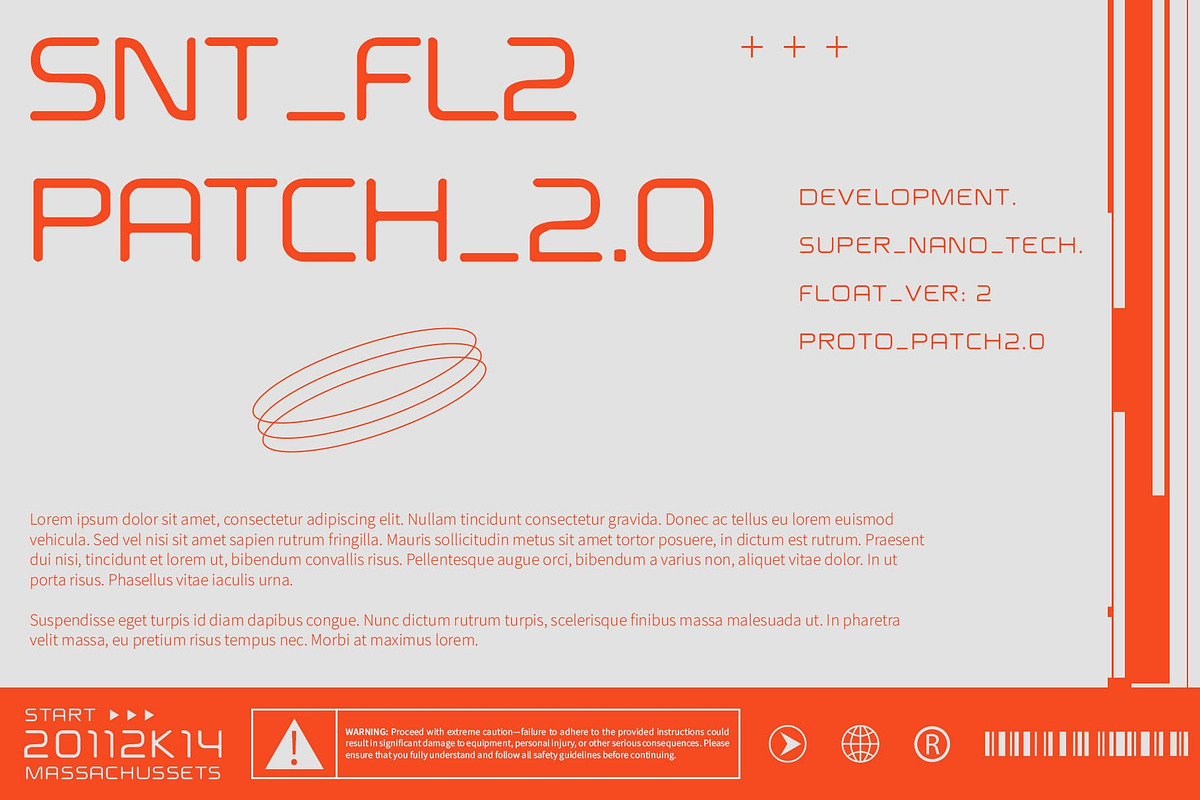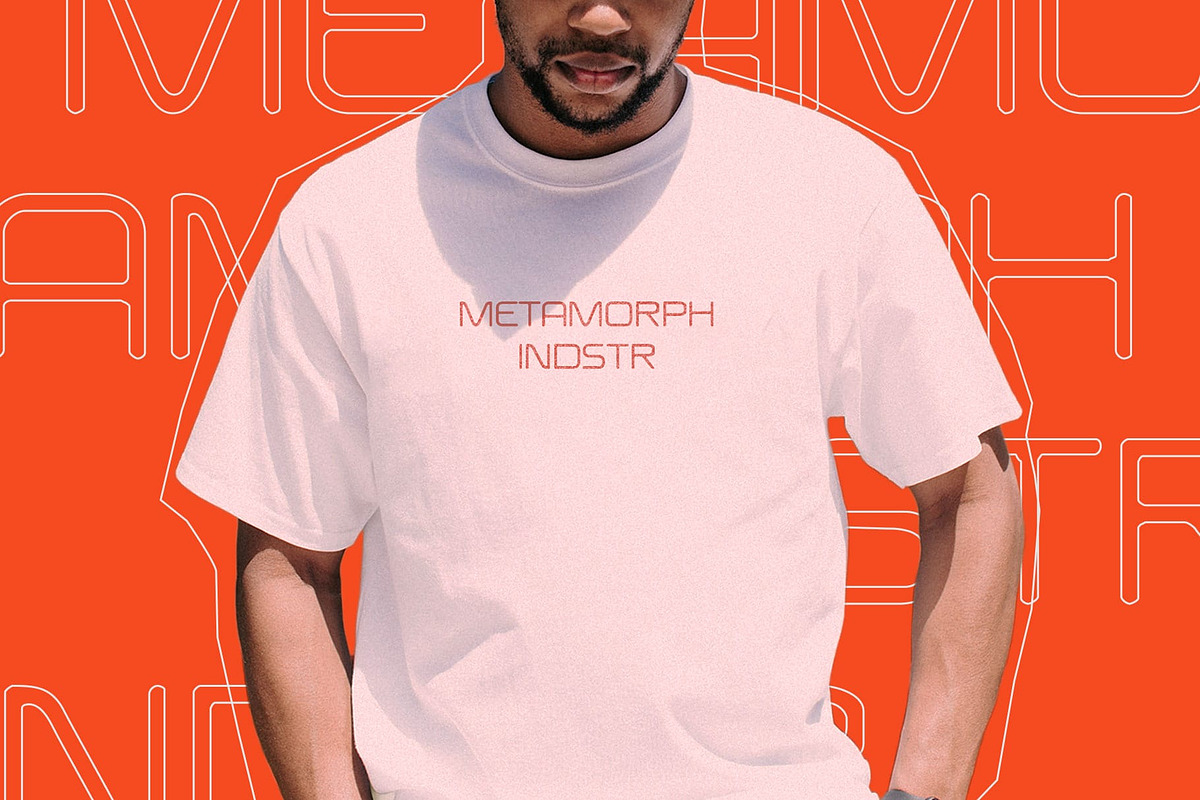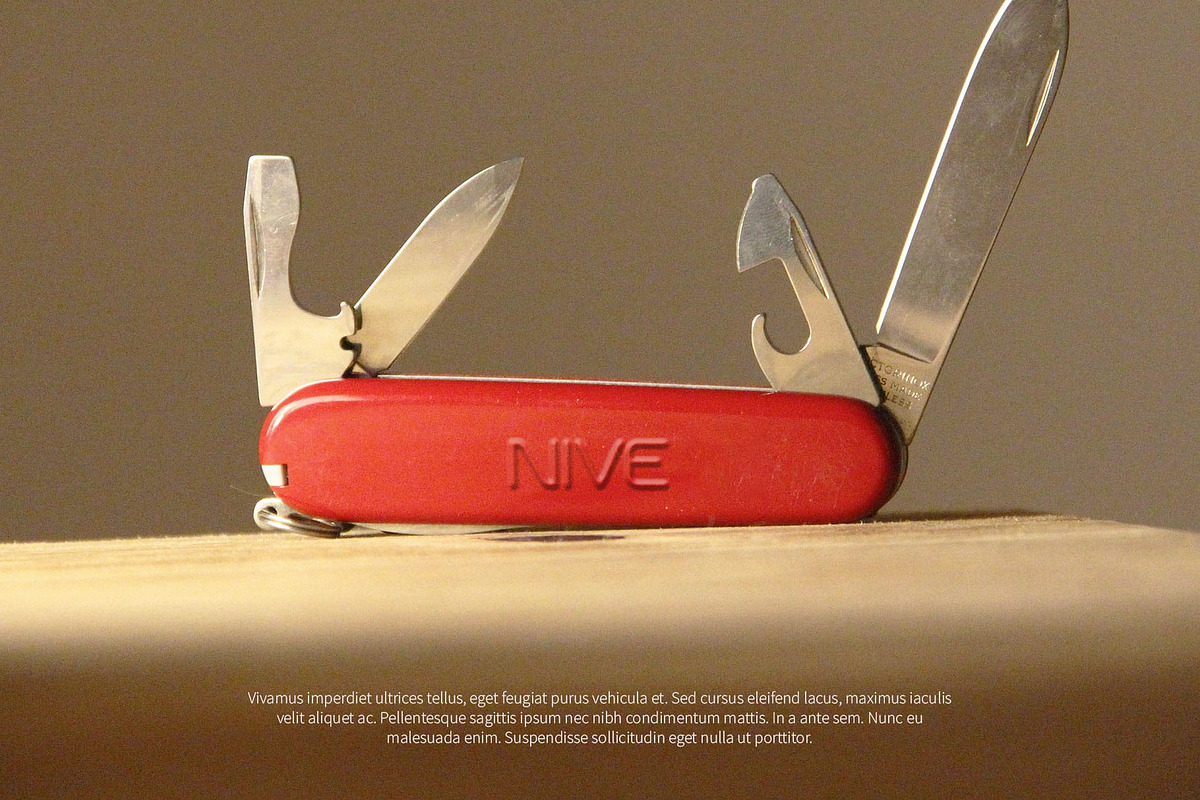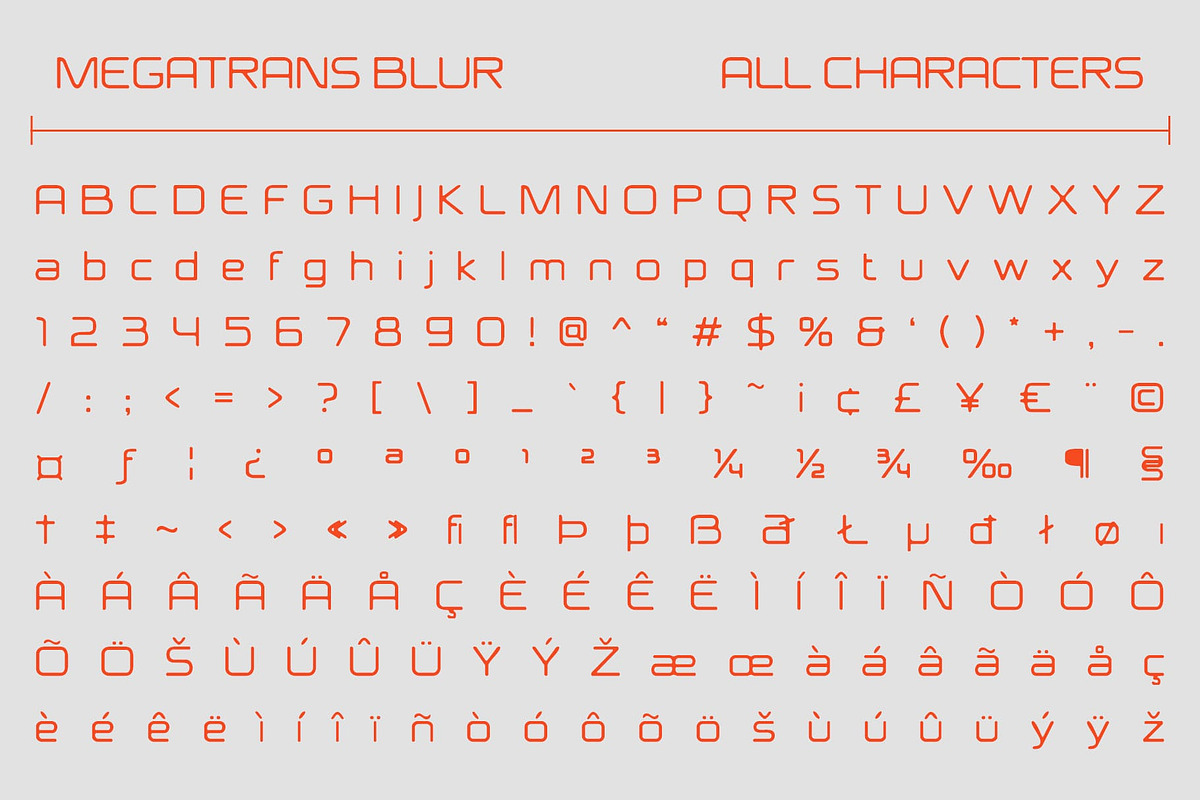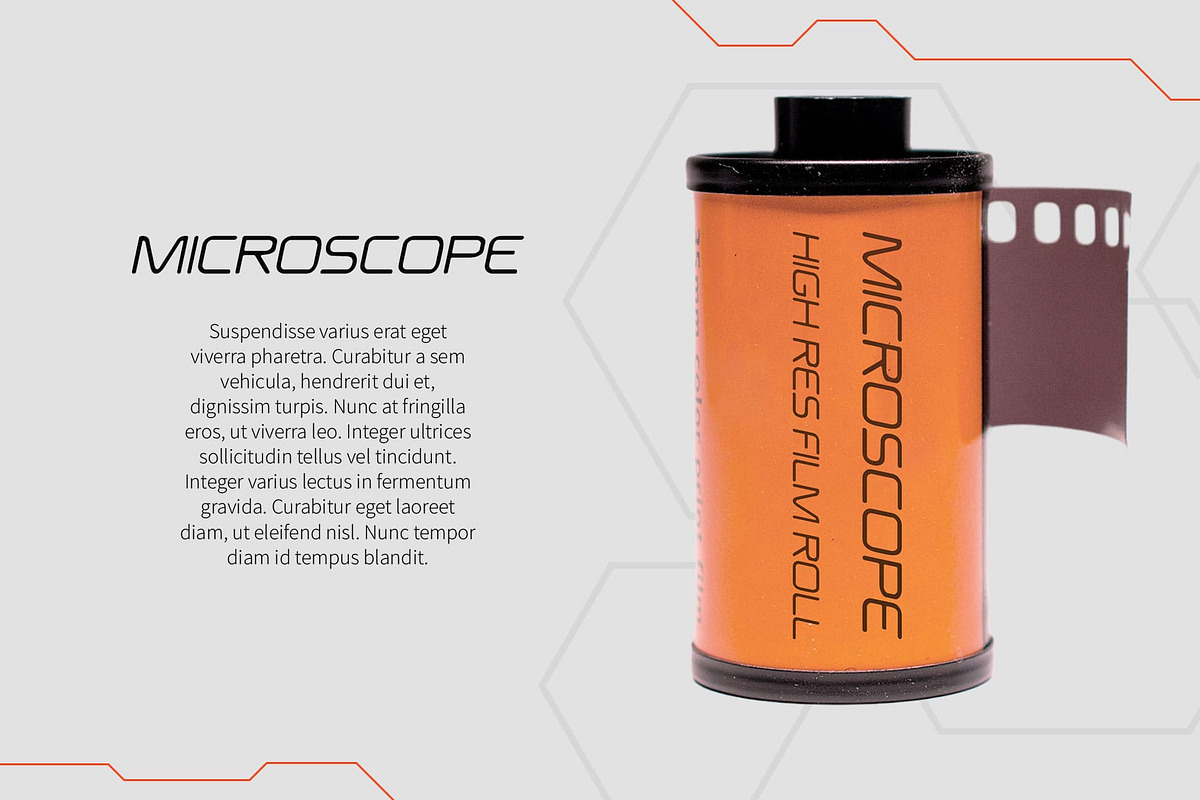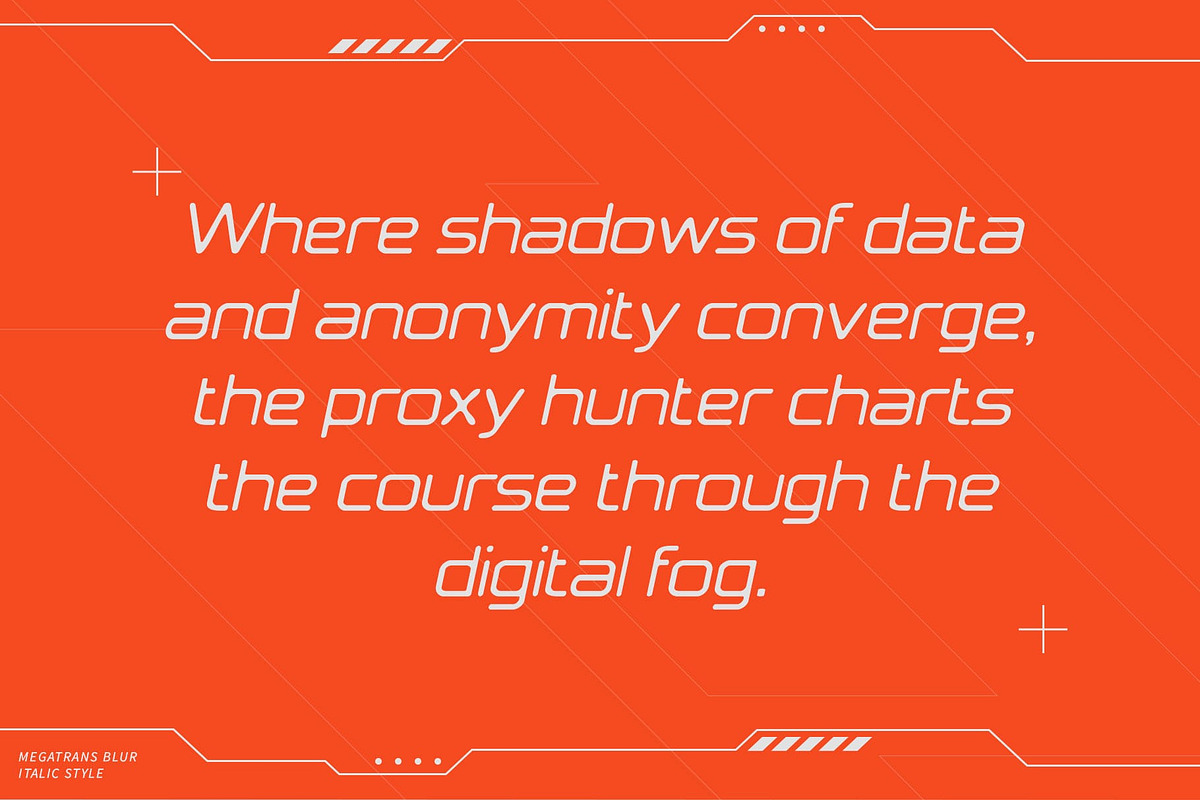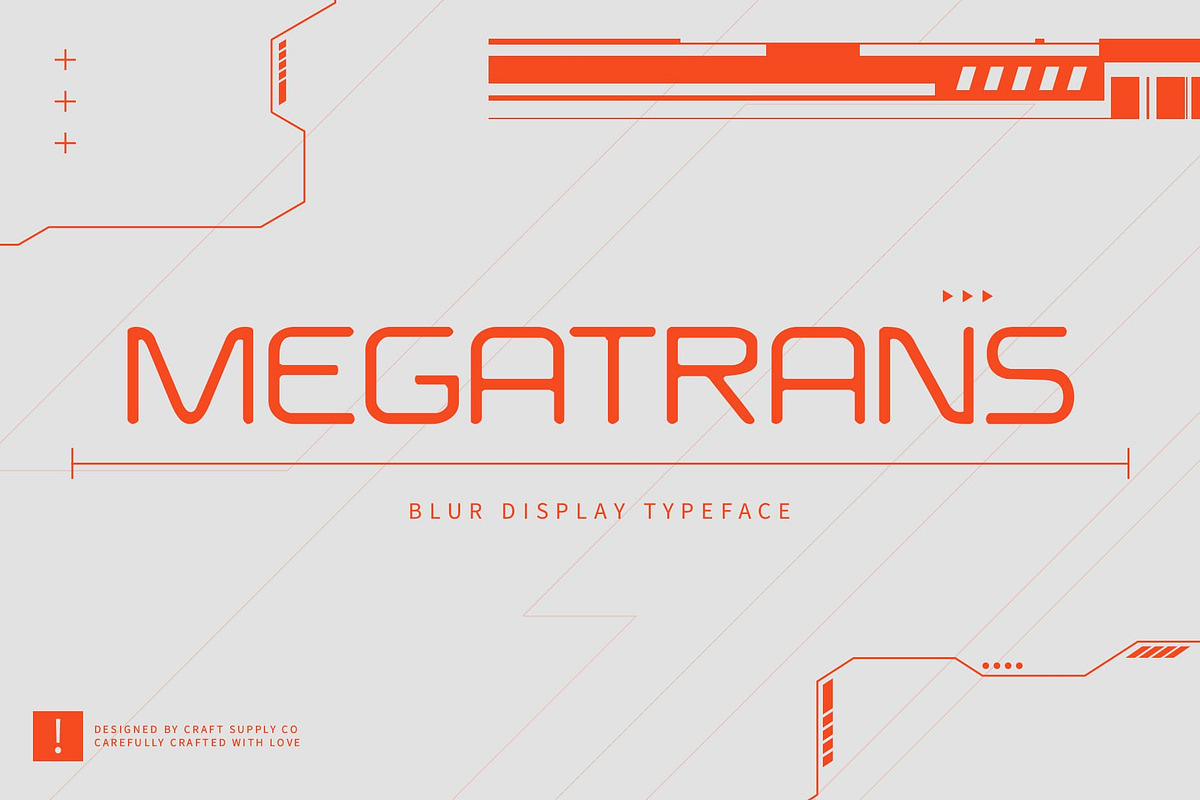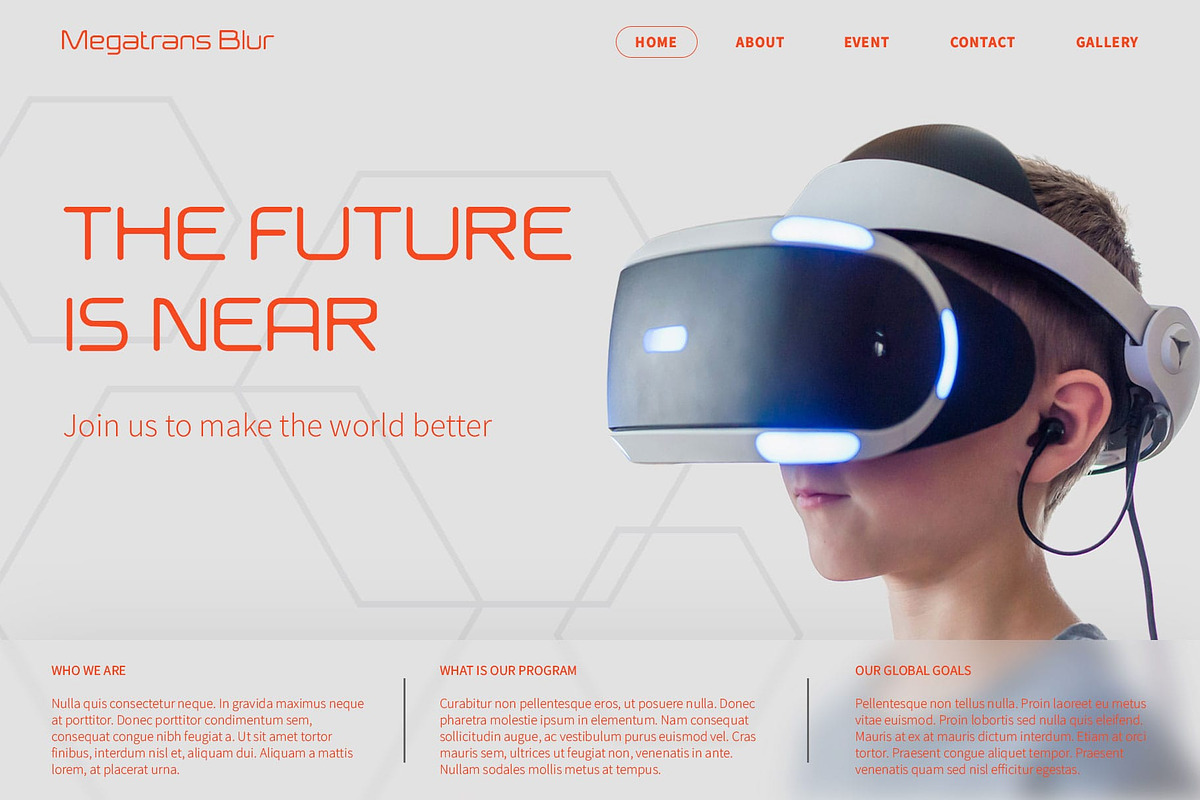
Megatrans Blur
Megatrans Blur Font: Futuristic Sans-Serif with a Dynamic Twist
Modern Futuristic Design Megatrans Blur is a cutting-edge sans-serif font that seamlessly blends a clean, contemporary design with an avant-garde blur effect. Its sleek and sharp lines are emblematic of a futuristic aesthetic, while the integrated blur introduces a captivating sense of motion and depth, resulting in a visually engaging and modern appearance.
Blur Effect for Added Depth The blur effect in Megatrans Blur adds an intriguing layer of depth and dynamism to the font. This unique characteristic creates a visual sensation of movement, enhancing the overall impact of your design. The blur effect makes the font not only stand out but also adds an element of sophistication and innovation.
Versatile for Modern Projects Megatrans Blur is exceptionally versatile, making it ideal for a variety of modern and technological projects. From user interfaces and technology posters to futuristic branding, this font provides a distinctive and contemporary edge that can elevate any design. Its futuristic flair ensures it complements projects that aim to convey a cutting-edge or technologically advanced message.
Perfect for Tech and Branding Whether you’re working on tech-related visuals, creating a futuristic brand identity, or developing modern marketing materials, Megatrans Blur delivers a striking and memorable look. Its combination of sleek design and dynamic blur effect makes it an excellent choice for designs that require a modern, innovative touch.
- Megatrans Blur Regular
- Megatrans Blur Italic